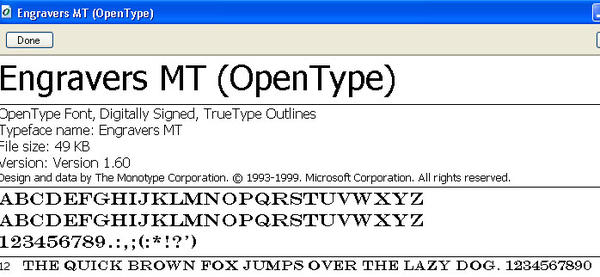
what font is that in Steampunk Streets, signs?
i need to make more shoppe signs, would like much to be in the same font style
EnGRAvERs mt?
but this is engravers on my system
I'm fairly certain it's Rockwell.
thanks. but rockwell doesn't match either.
i guess maybe the artist didn't use public domain font.
was looking for the 'junk' lettering.
I've seen a few similar fonts — Tiffany, maybe? That's got the same flowy-Art-Deco-ish thing going, I think. Can't remember if there are any public domain versions.
Am I missing something?
I'm sticking to my guns, it's totally Rockwell. The kerning has just been adjusted to create 'faux' ligatures.
was looking for the 'junk' sign lettering. just realized the rest of the lettering is different. :shut:
It's a "blackletter" font, though i'm not sure which...
ah that explains it, I missed that sign completely
it haz that 'ye olde' ness :)